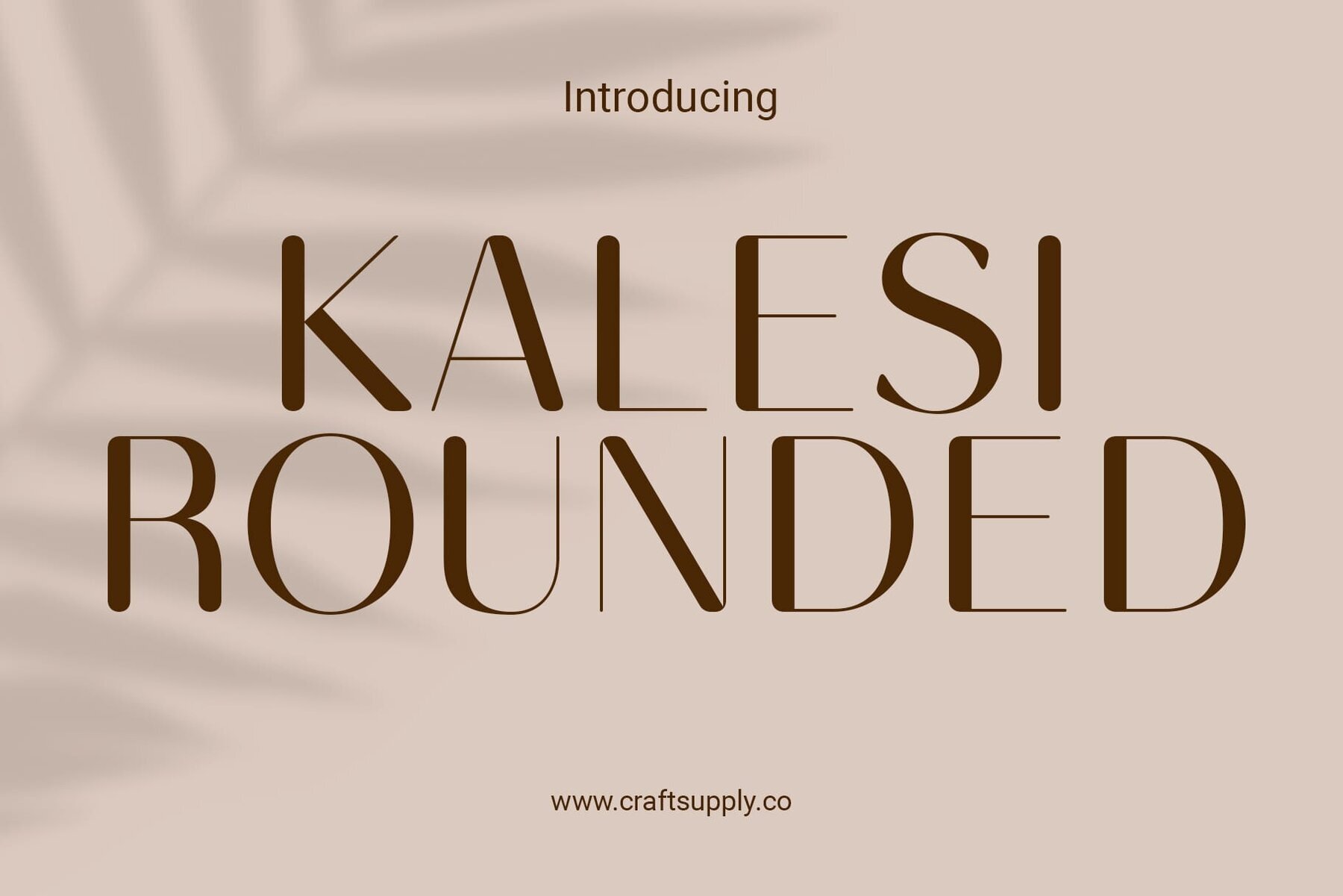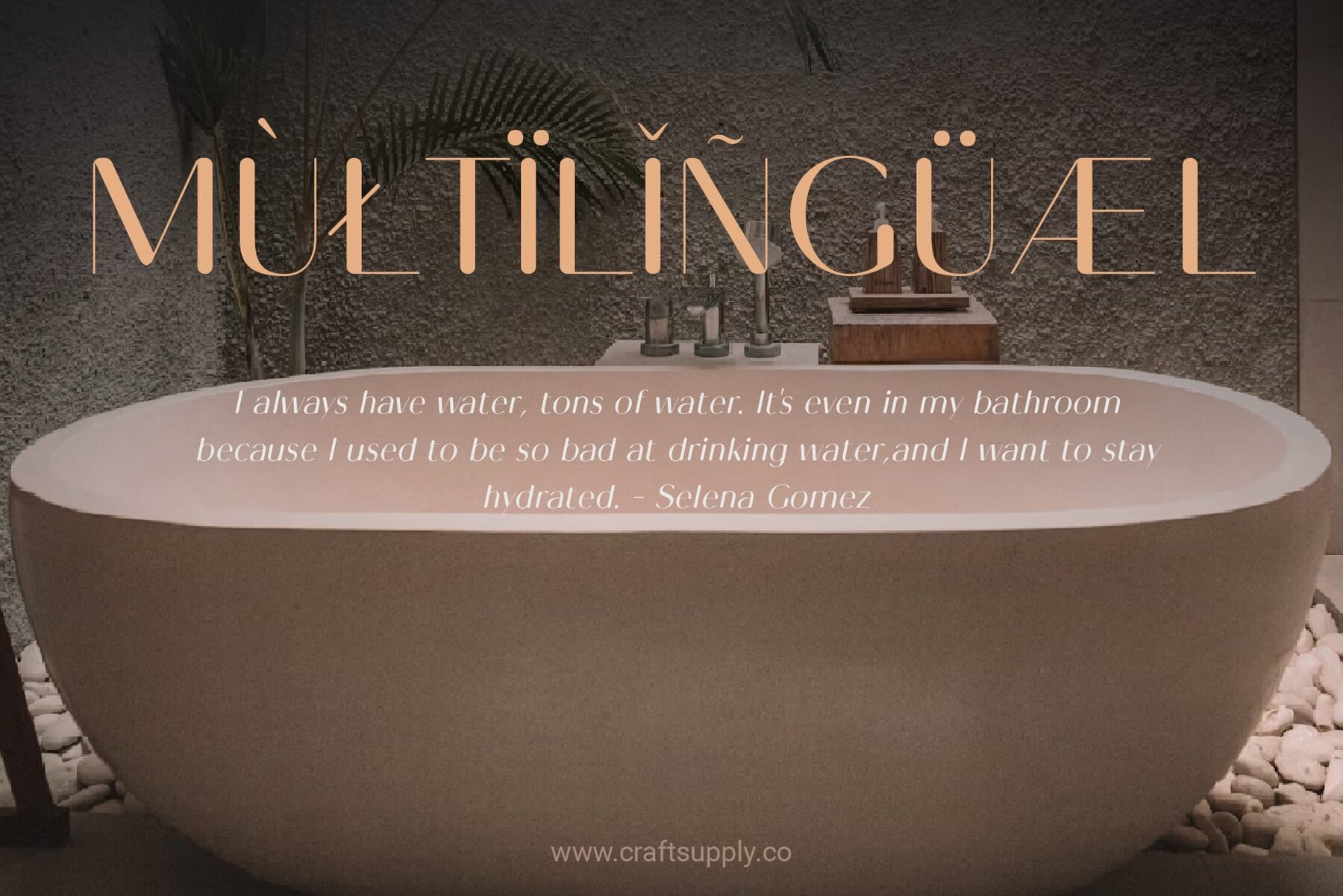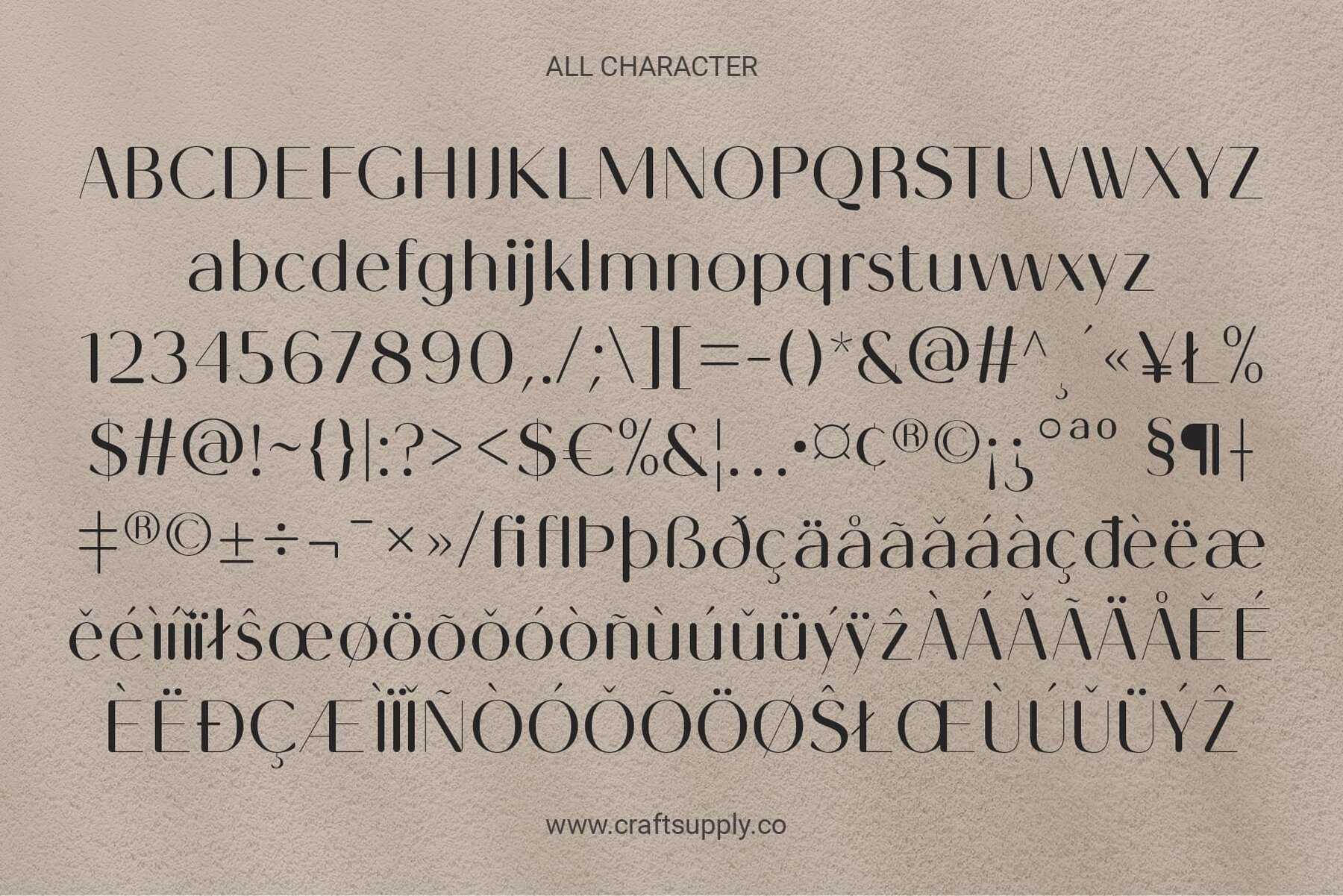
Kalesi Rounded Font
This font is a modern, sans-serif typeface with geometric influences that presents a bold and clean aesthetic suitable for display purposes. Its uniform line weight, high contrast, and minimalist design make it highly legible and versatile for various applications while offering a distinctively elegant and contemporary feel.